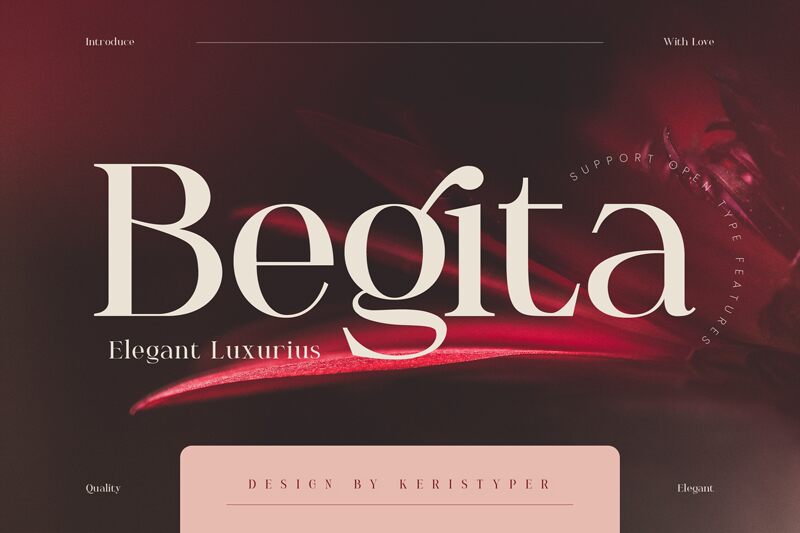
Begita font is designed by Tezar Tantular. Begita is an elegant, high contrast, serif font that brings classic flowing curves and distinctive terminals. With its refined mood and balanced proportions, Begita offers elegant sensibility perfect for modern layouts while incorporating a beautiful classical note.
Begita